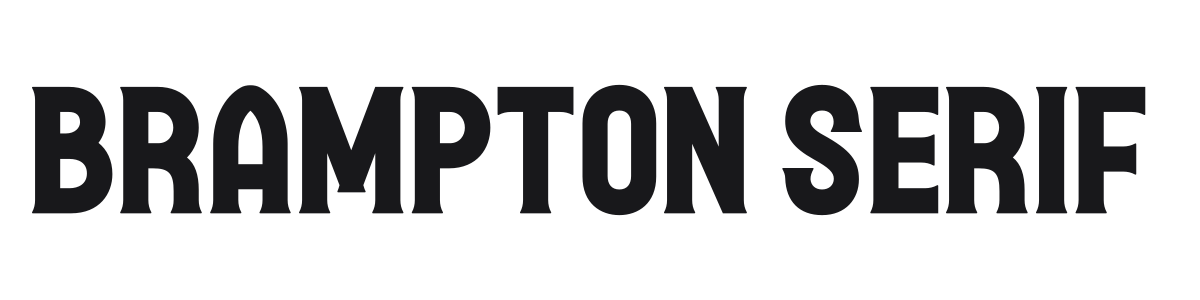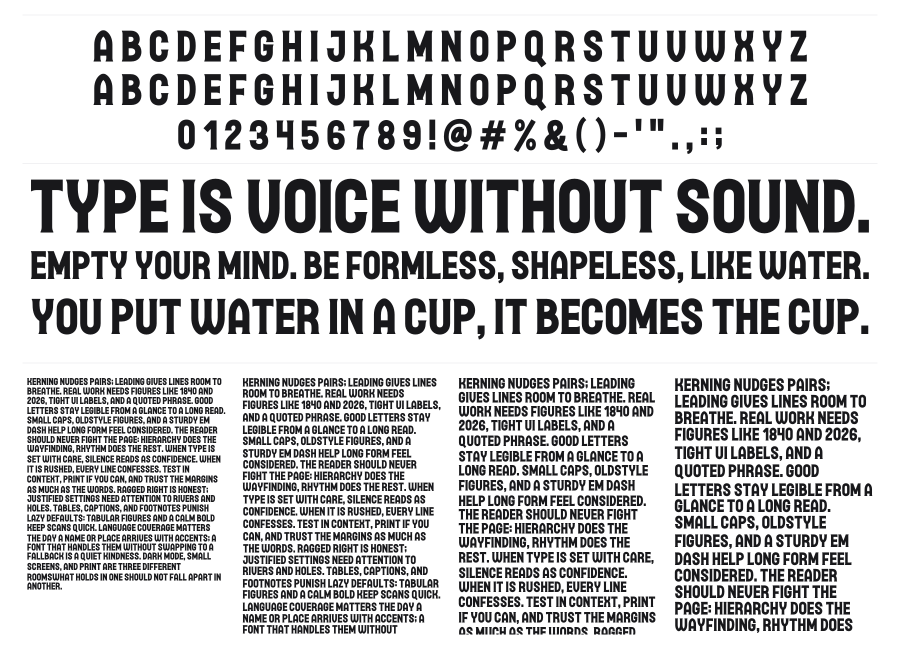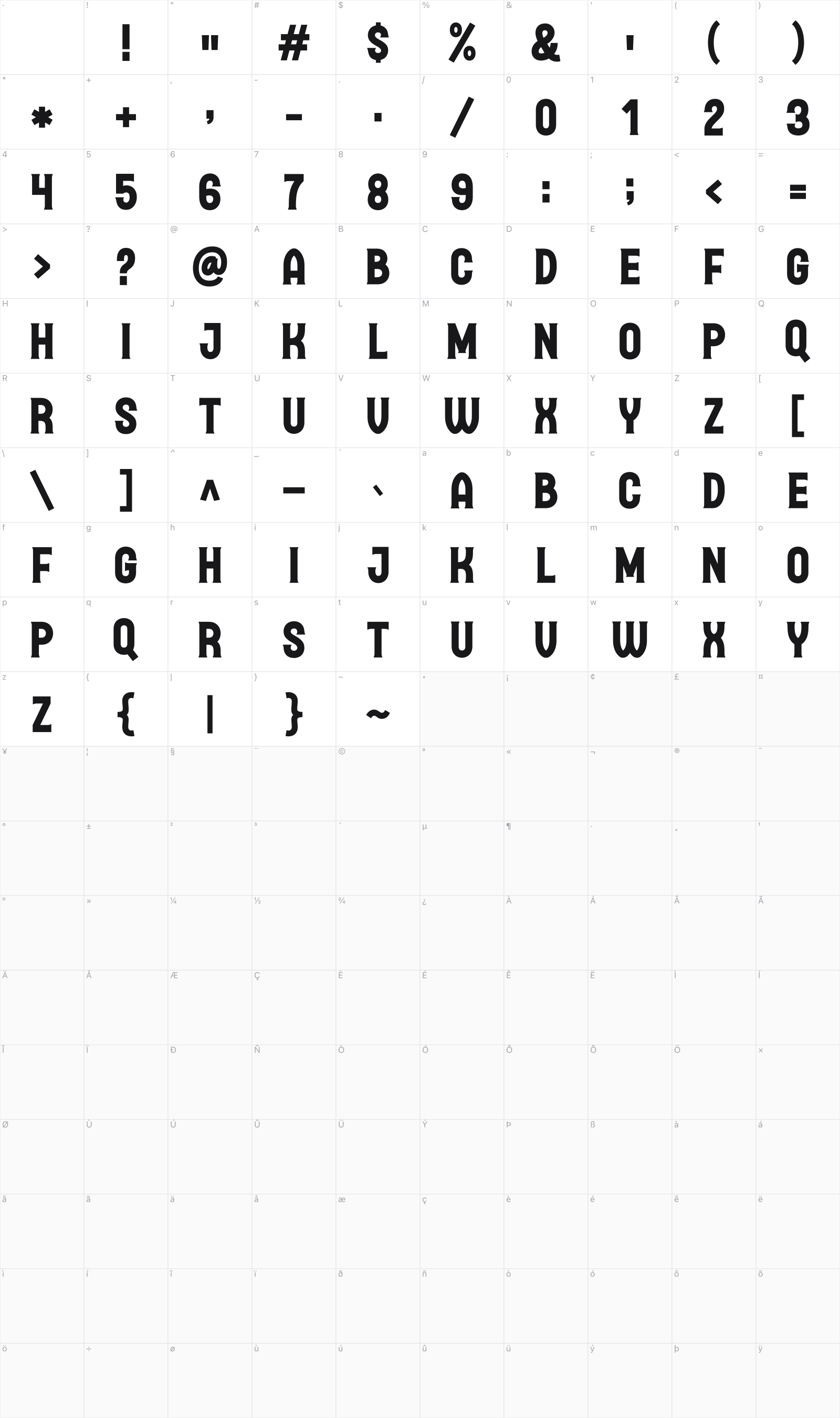
Brampton Serif
Brampton Serif is a heavy condensed display serif with punchy proportions and sharp wedge serifs that snap the design into focus. Its near-monoweight strokes and compressed stance give it a mid-century American edge, the kind of thing you'd find on a vintage sports program or a diner menu board. It hits hard at large sizes and carries real authority in headlines and logotypes.